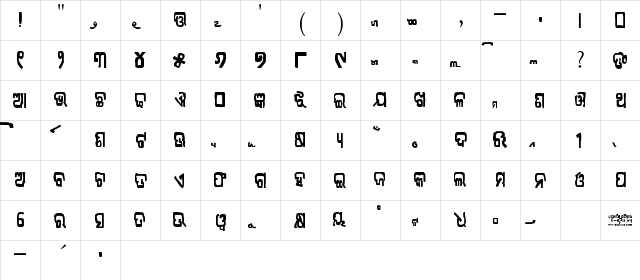
eOdissa Bahuda Subhashish
| Foundry | Subhashish Panigrahi |
| Designer | Subhashish Panigrahi |
Design Context for eOdissa Bahuda Typeface
eOdissa Bahuda offers clean, dependable letterforms without strong stylistic allegiance, making it a practical choice for designers who need flexibility.